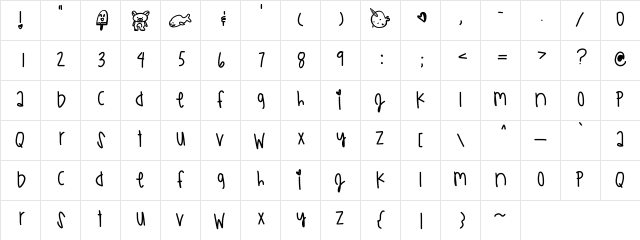
WhoaBaby Medium
Design Context for WhoaBaby Typeface
WhoaBaby is a composed and adaptable typeface that performs quietly and consistently across a wide range of design contexts.